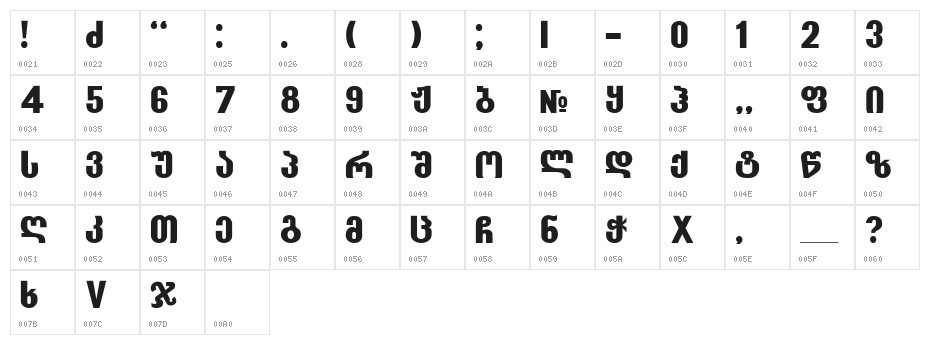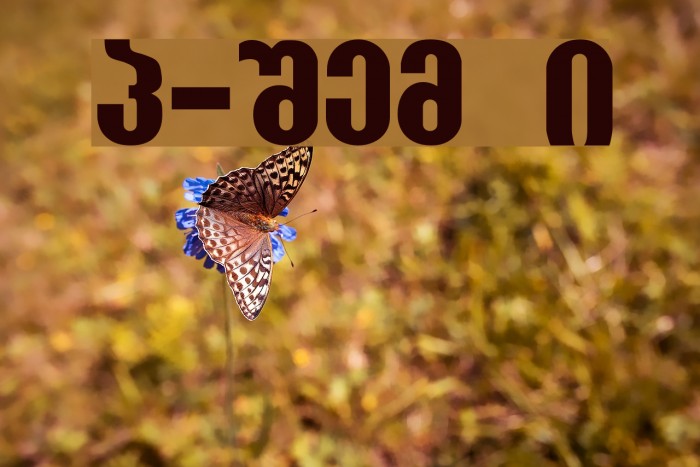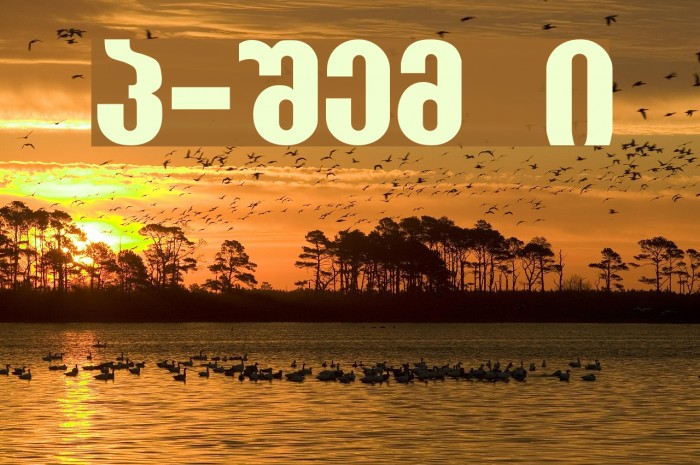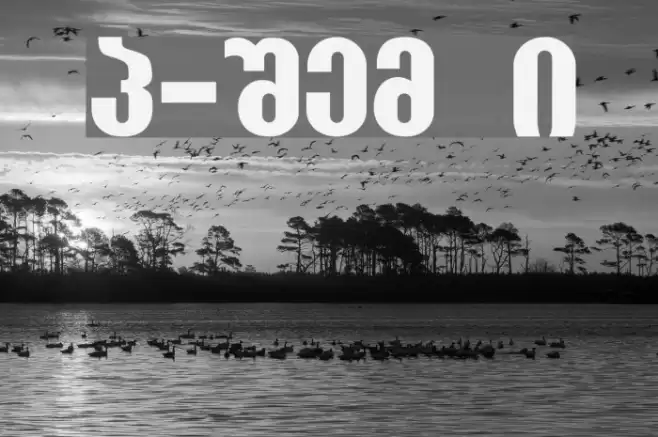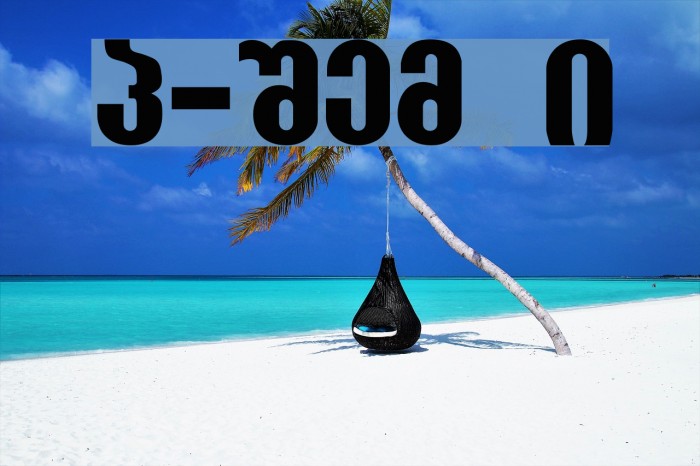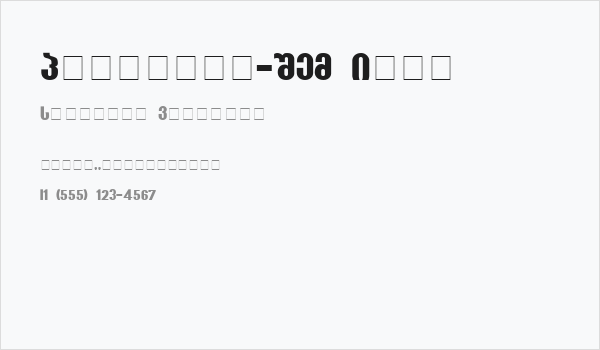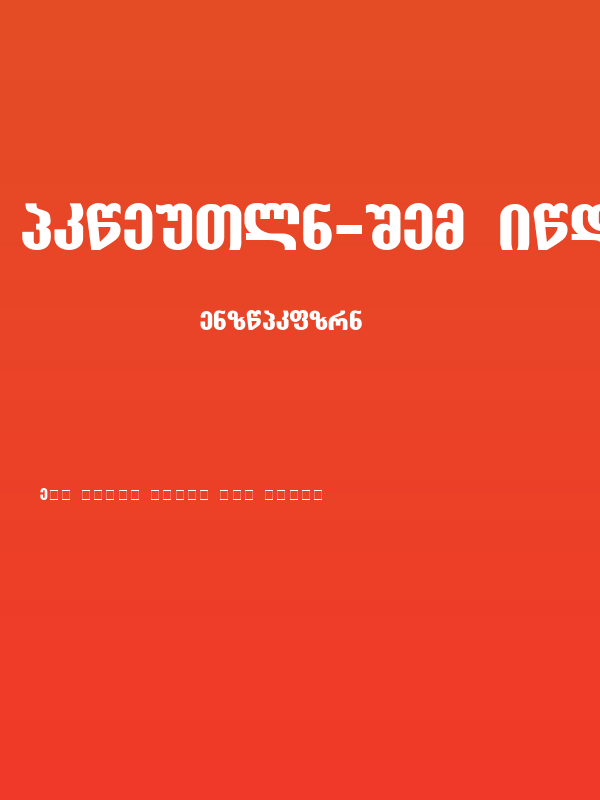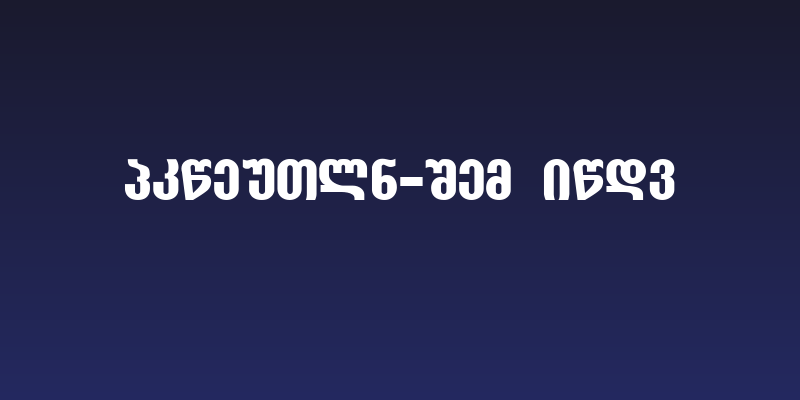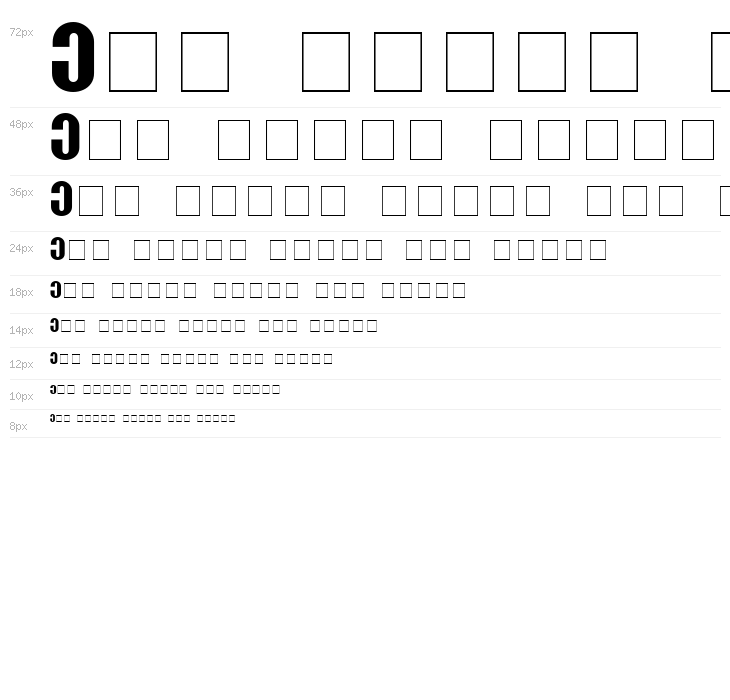
Grotesky-ITV Bold Font
Grotesky-ITV Bold Description
This font exhibits a bold and robust style, characterized by thick strokes and a strong presence. The characters are well-defined with a modern, sans-serif aesthetic that emphasizes clarity and readability. The numbers are equally bold, maintaining consistency across the typeface. Special characters are designed to match the overall weight and style, ensuring uniformity. The font's design is straightforward, making it suitable for various applications where impact and legibility are essential.
| Proposed Projects | Ideal for headlines, posters, branding materials, and any design requiring a strong visual impact. |